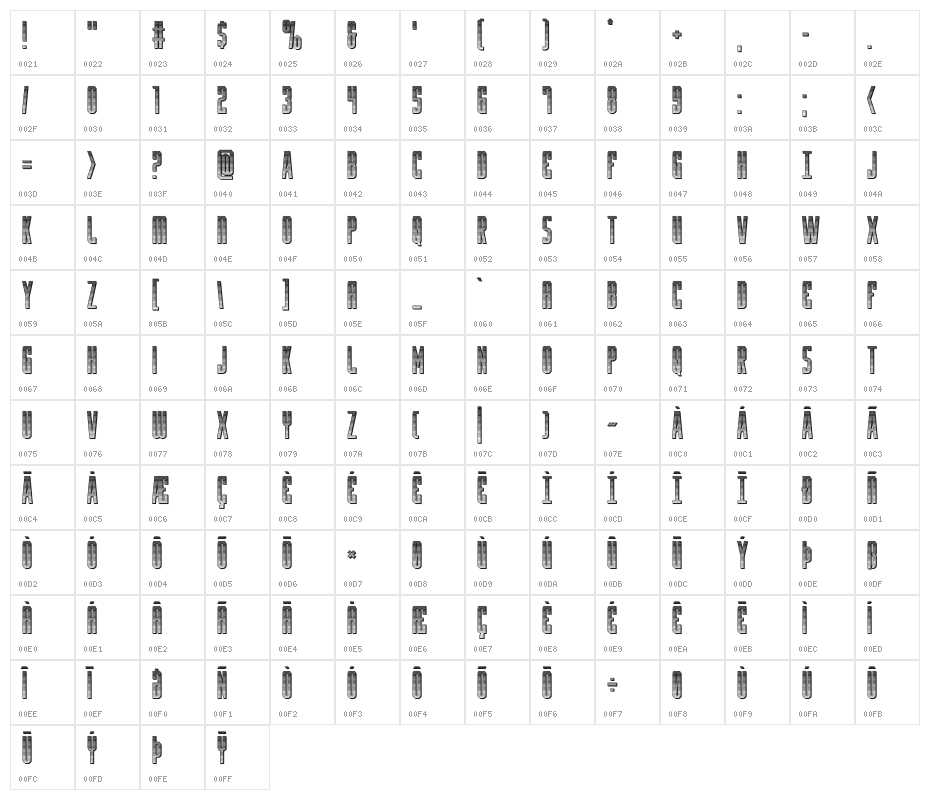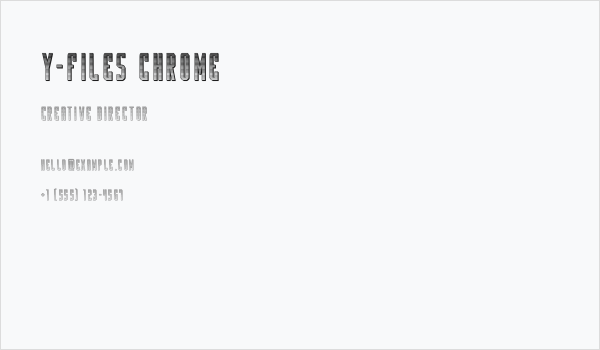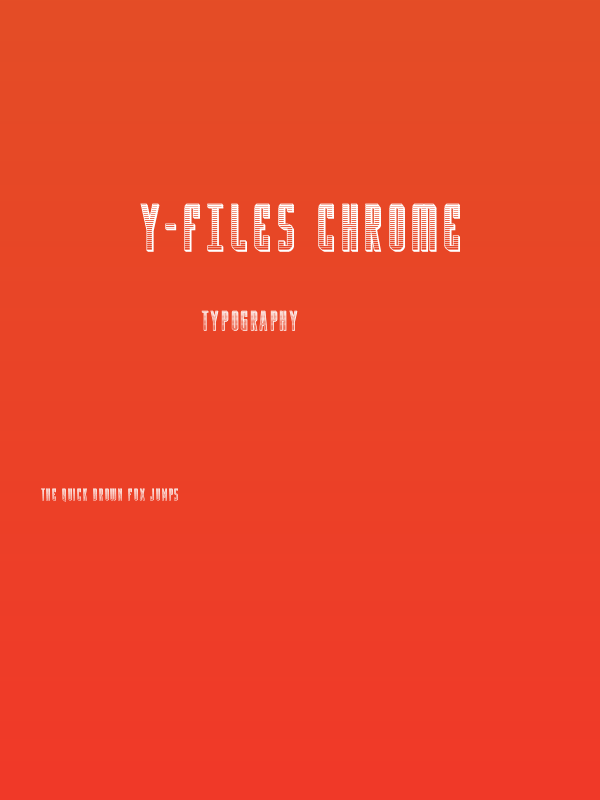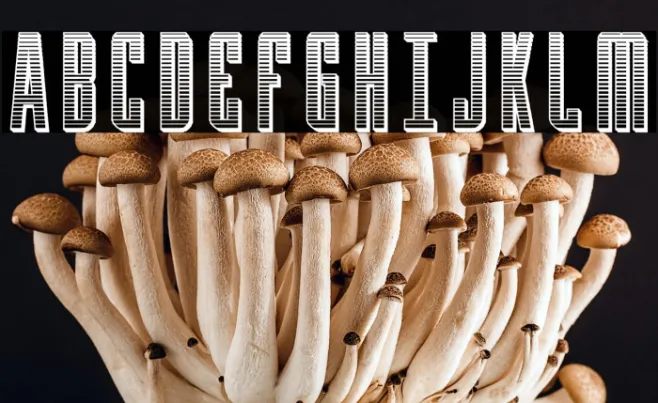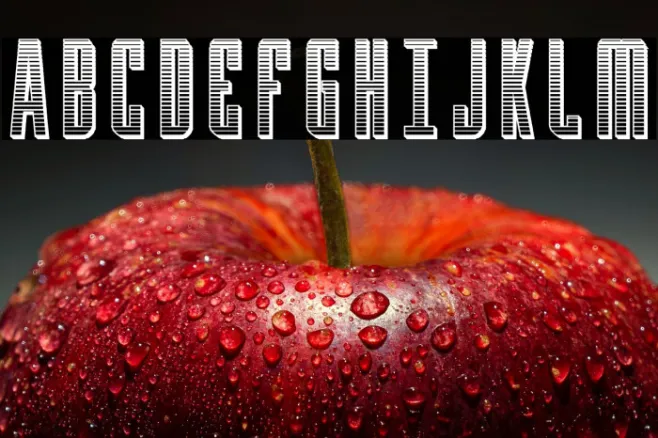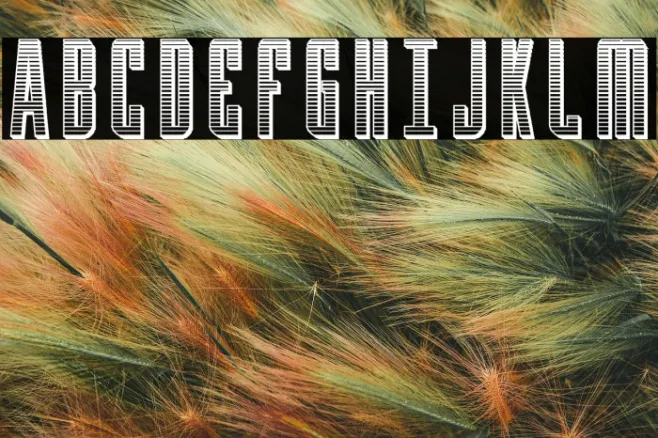
Y-Files Chrome Font
Y-Files Chrome Description
This font features a bold, decorative style with a unique striped pattern running through each character. The uppercase and lowercase letters maintain a consistent width, giving the font a uniform appearance. The numbers and special characters are designed with the same striped detail, enhancing the cohesive look. The font's boldness and distinct design make it stand out, suitable for eye-catching displays. The characters are evenly spaced, ensuring readability while maintaining a striking visual impact. The font's modern and artistic flair makes it ideal for creative projects.
| Proposed Projects | Ideal for posters, headlines, branding, and any project requiring a bold, artistic touch. |